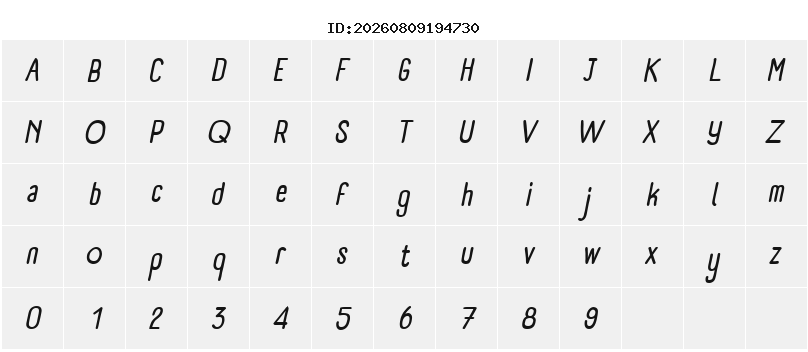
• Font Name: Panforte
• Font Style: Fina
• Font ID: StudioKmzero: Panforte Condensed Regular Italic: 2011
• Full Font Name: Panforte Condensed Regular Italic
• PostScript Name: Panforte-CondensedRegularItalic
• Designer: Debora Manetti
• Manufacturer: Studio Kmzero
About Panforte.ttf
Panforte.ttf is a modern, elegant sans-serif font designed for ultimate readability and visual harmony. Perfect for branding, headlines, web design, and print materials.